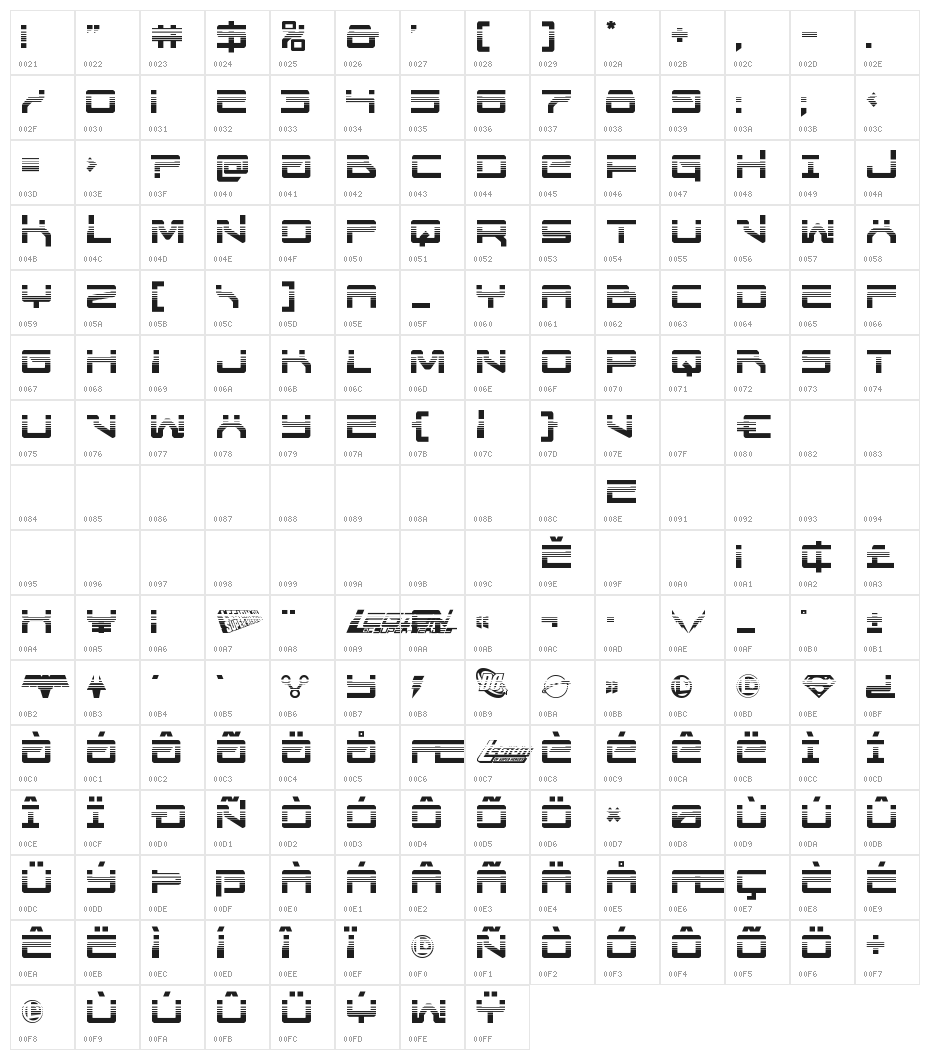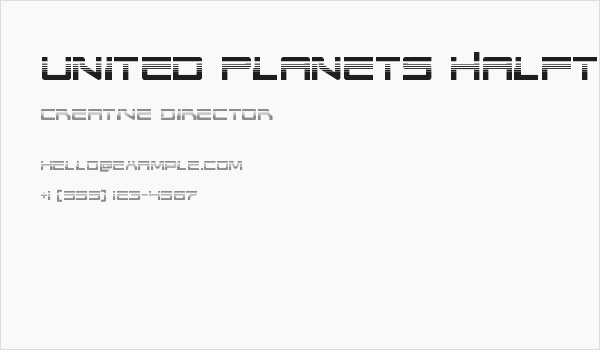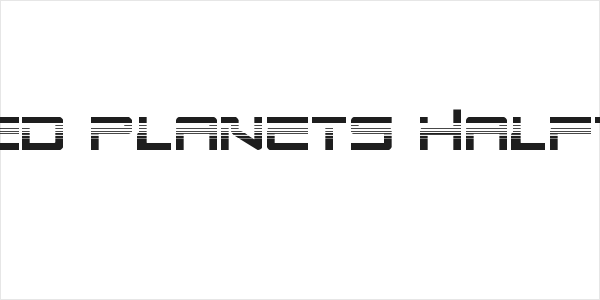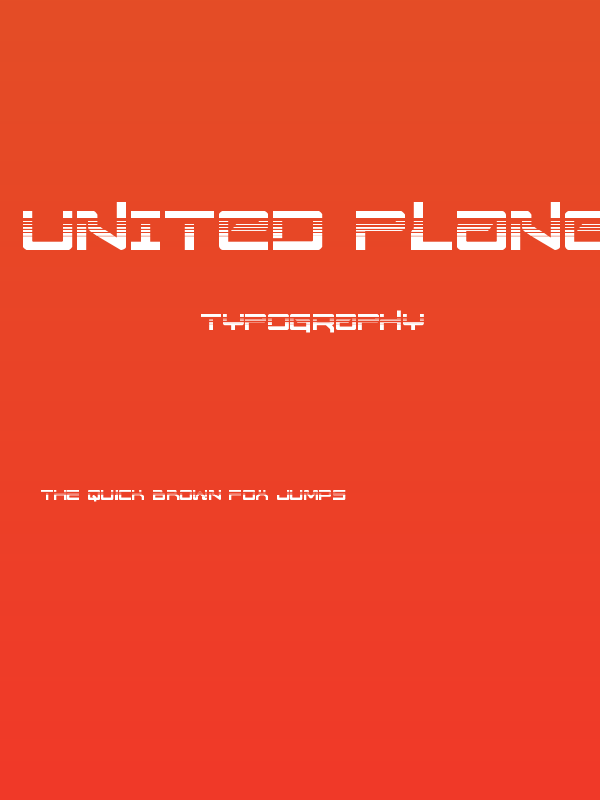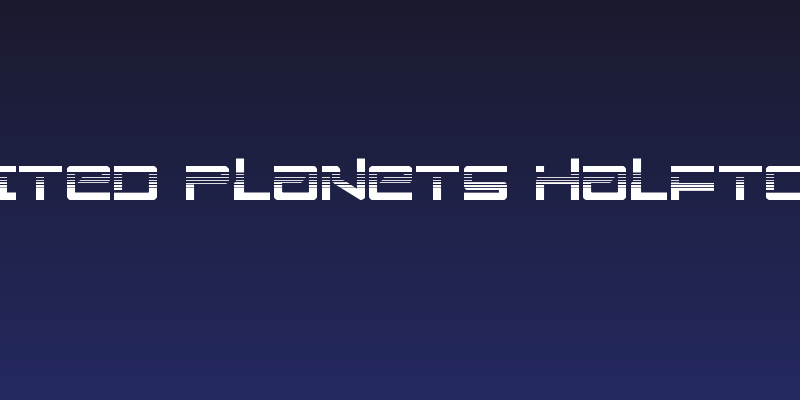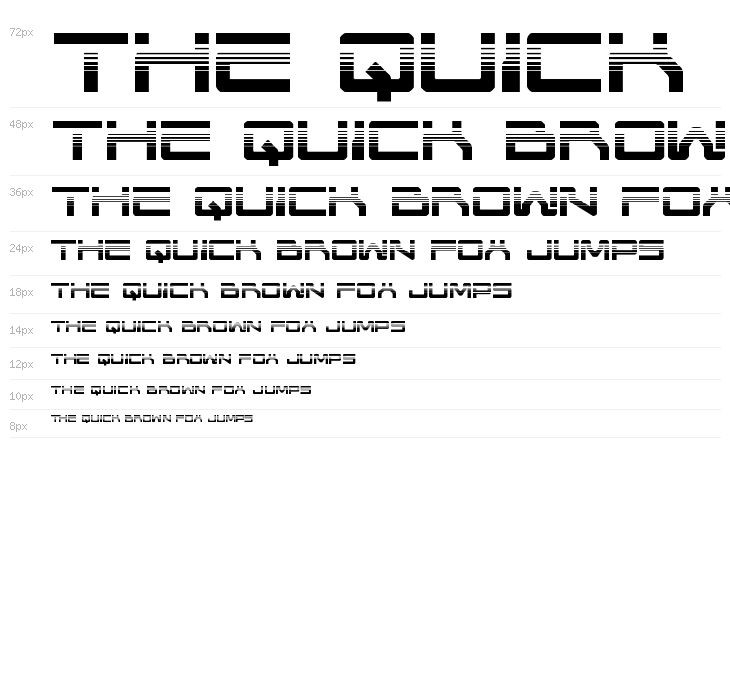
United Planets Halftone Font
United Planets Halftone Description
This font features a futuristic and digital aesthetic, characterized by its unique halftone pattern within each character. The letters are constructed with horizontal lines that create a sense of movement and modernity. The geometric shapes are consistent throughout, giving it a cohesive and structured appearance. The uppercase and lowercase letters maintain a uniform style, while the numbers and special characters complement the overall design. This font is ideal for projects that require a tech-savvy or sci-fi theme, offering a bold and eye-catching look.
| Proposed Projects | Ideal for sci-fi themed posters, tech company logos, video game titles, and digital media projects. |